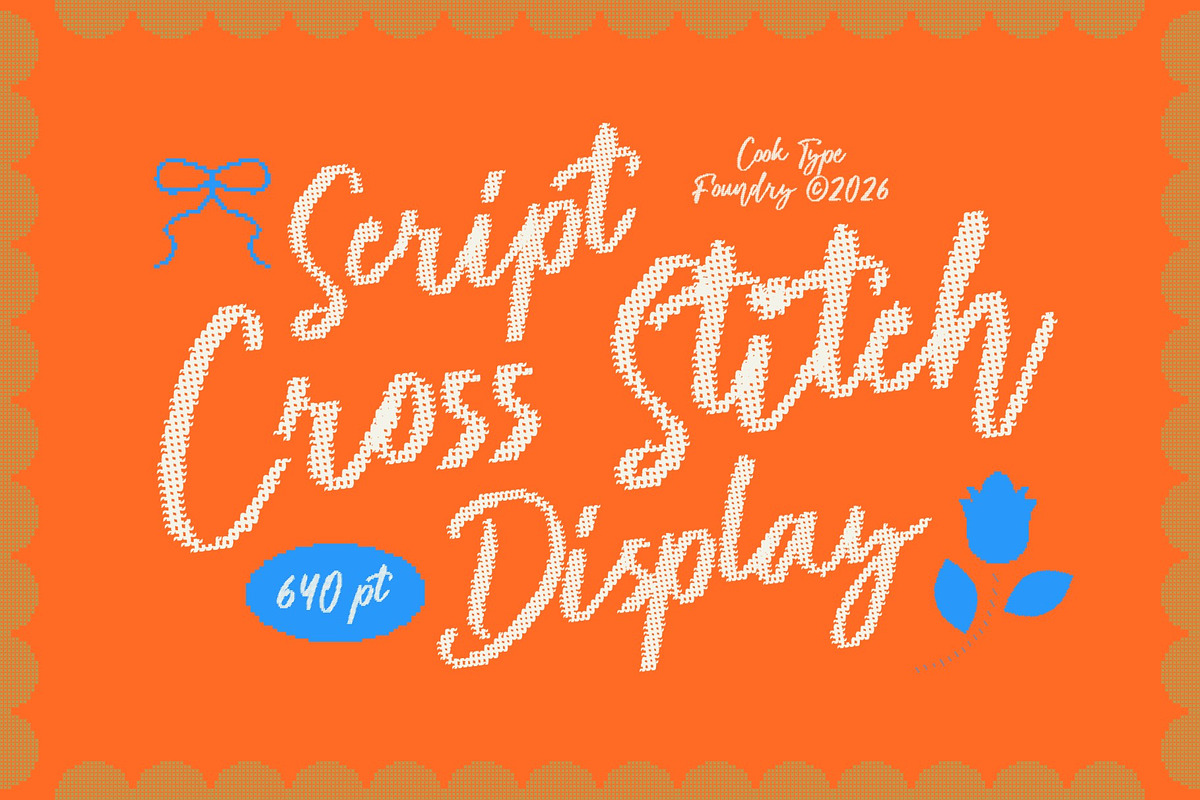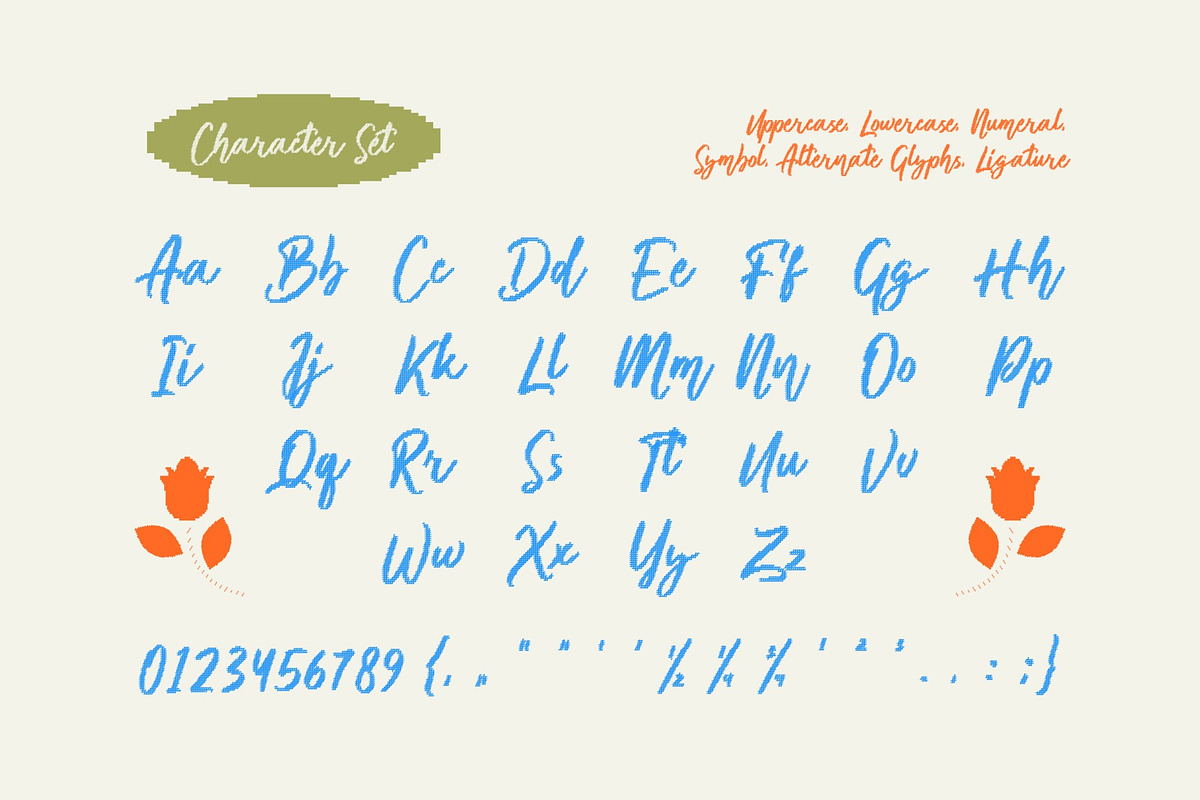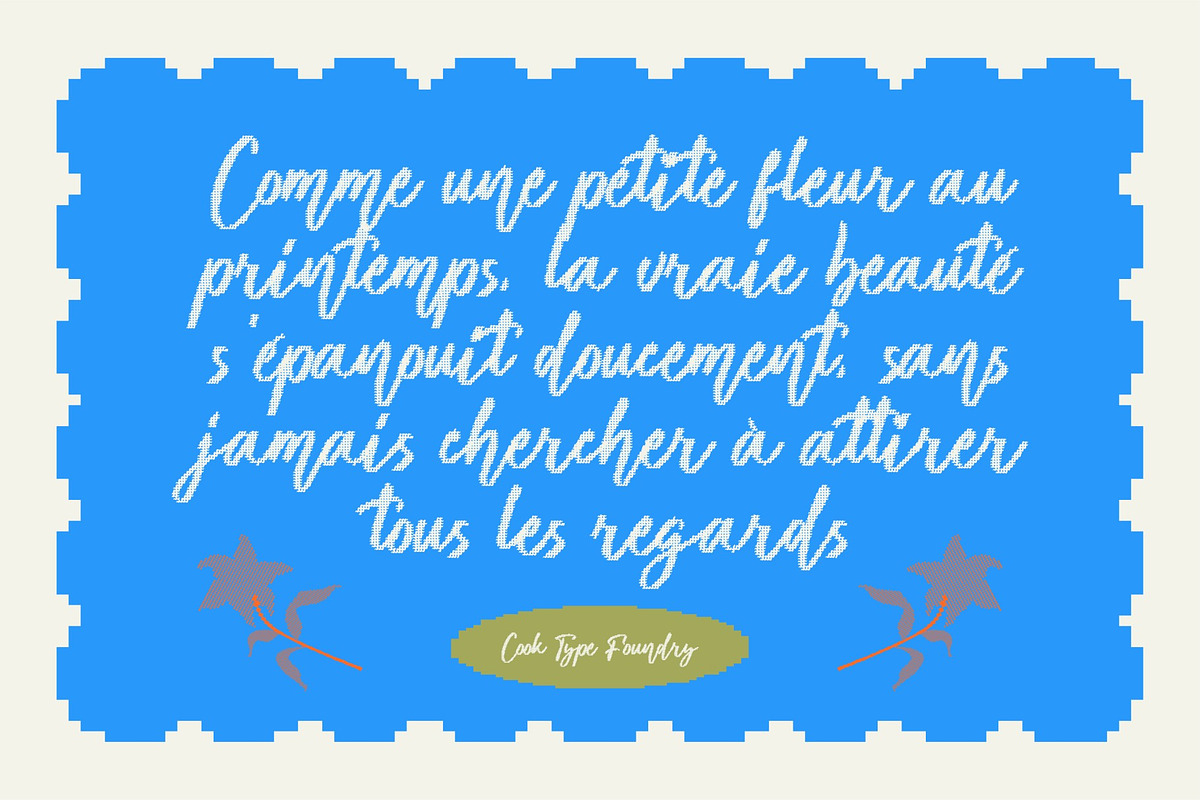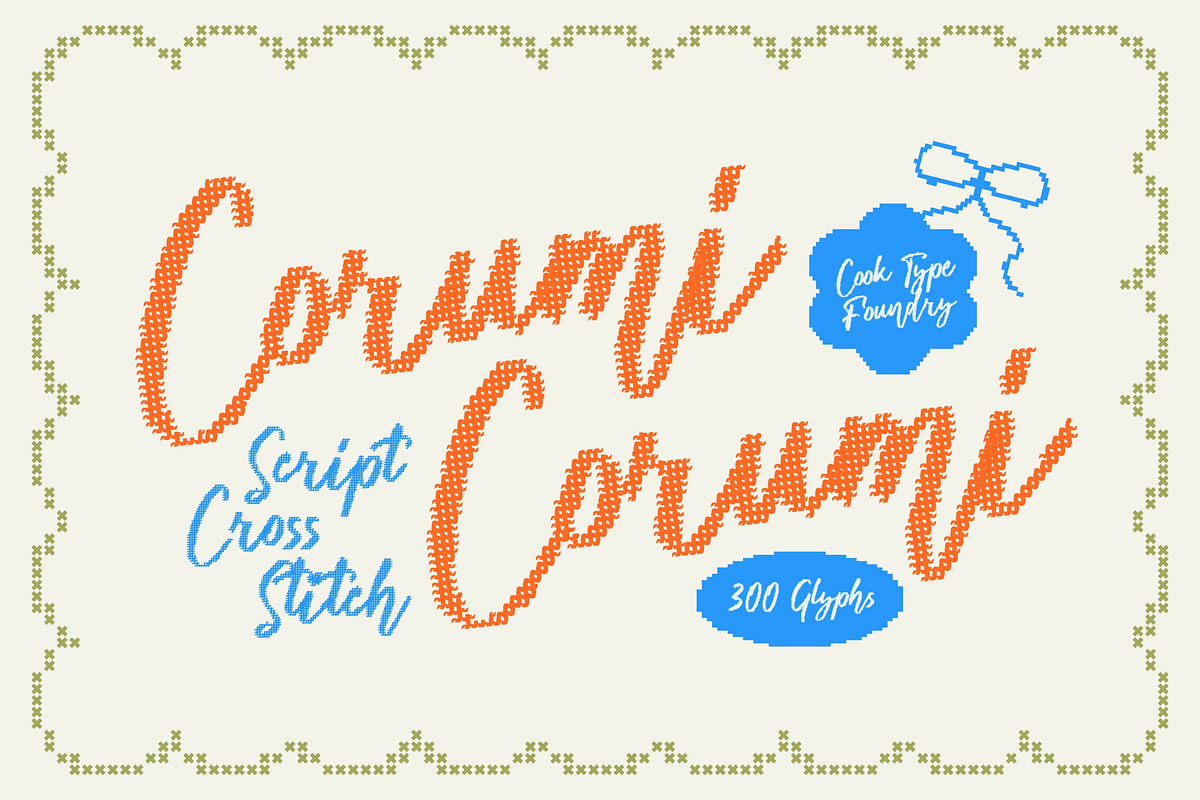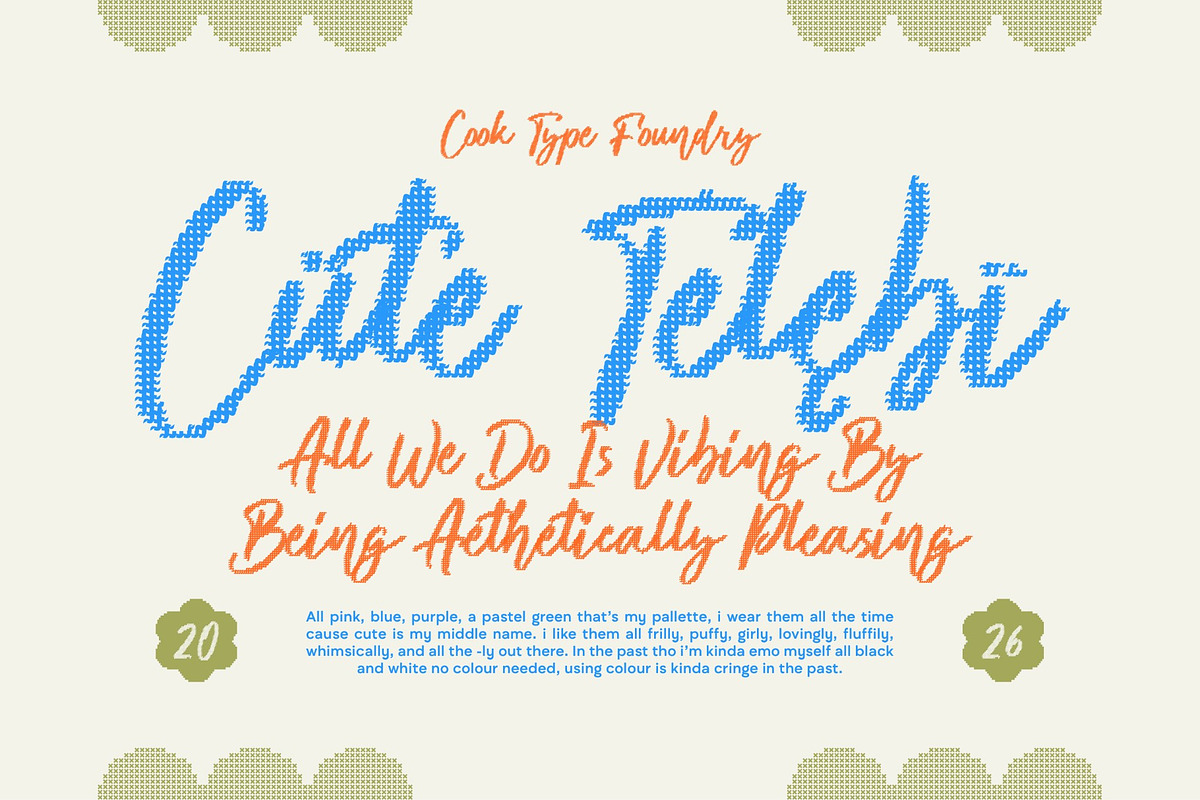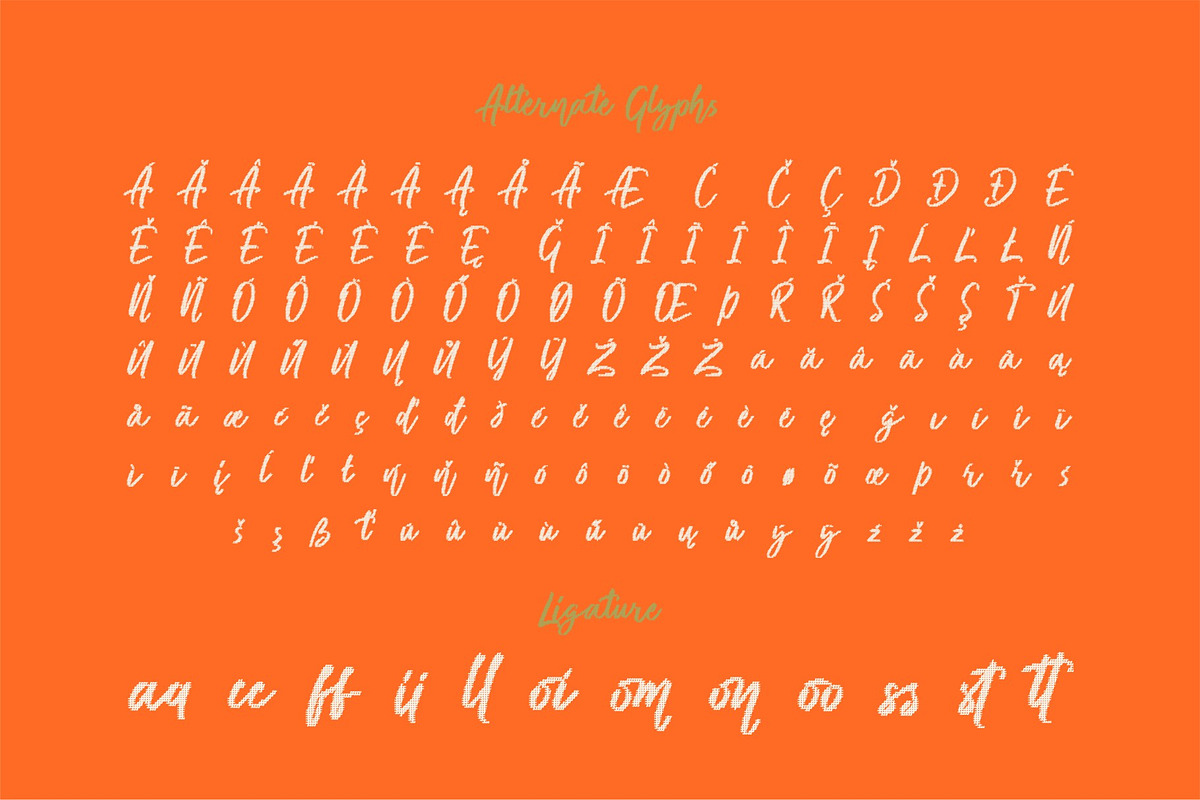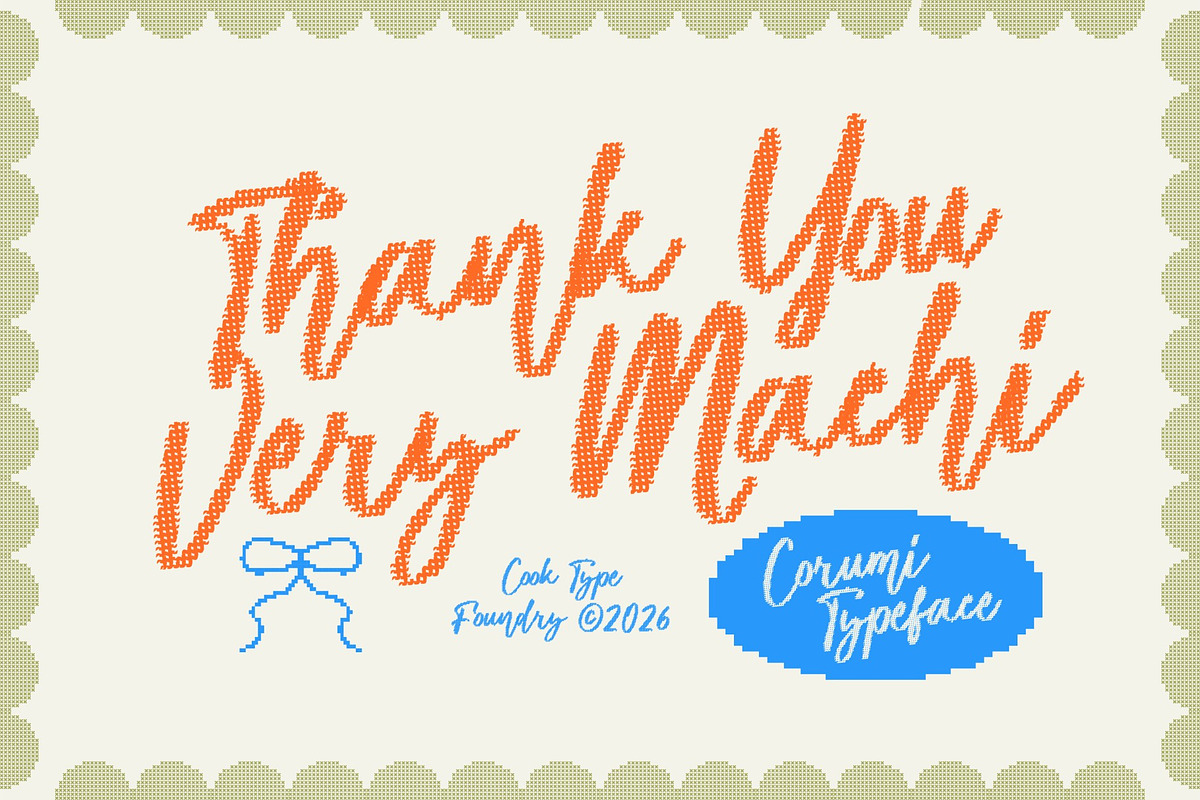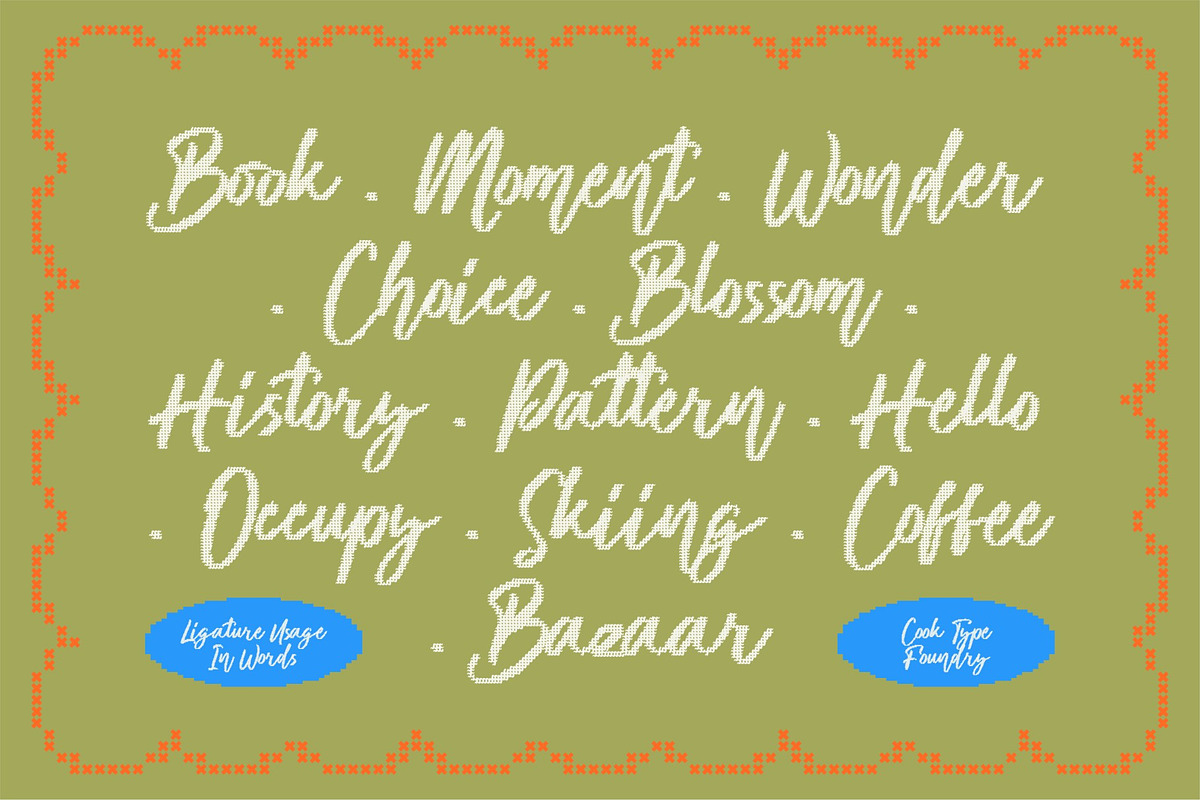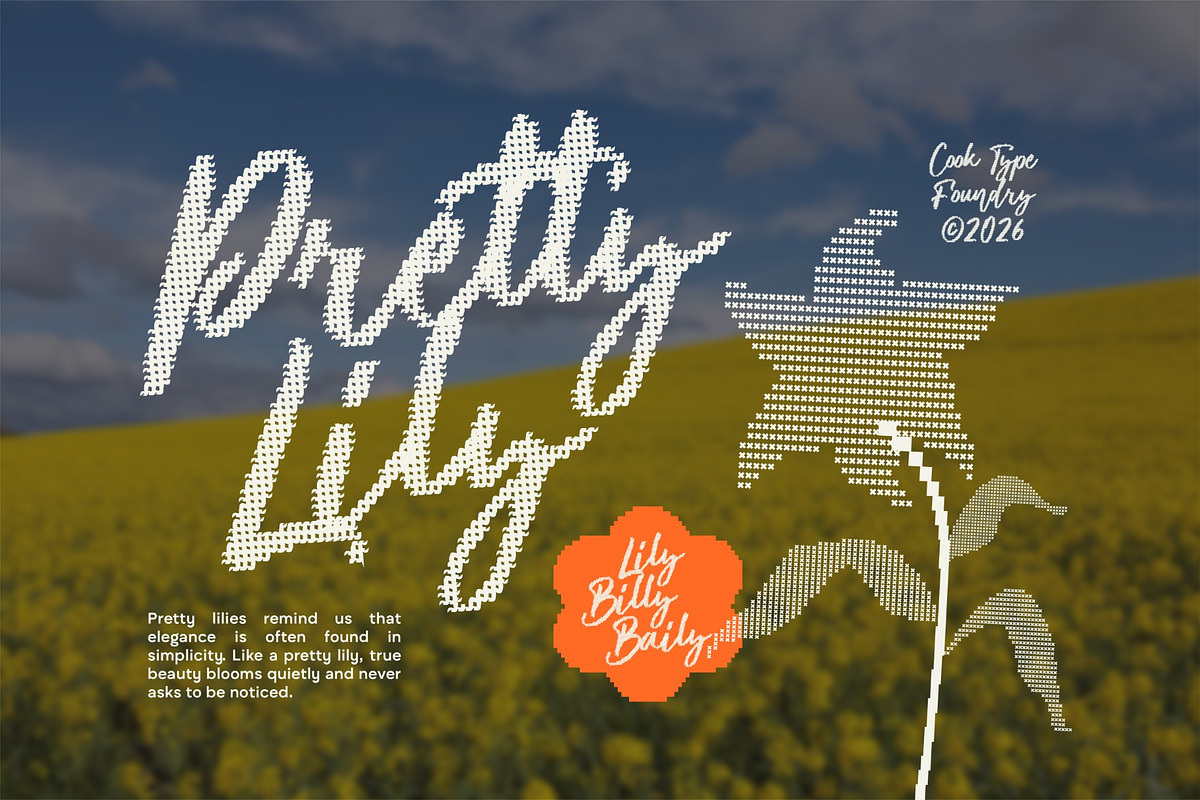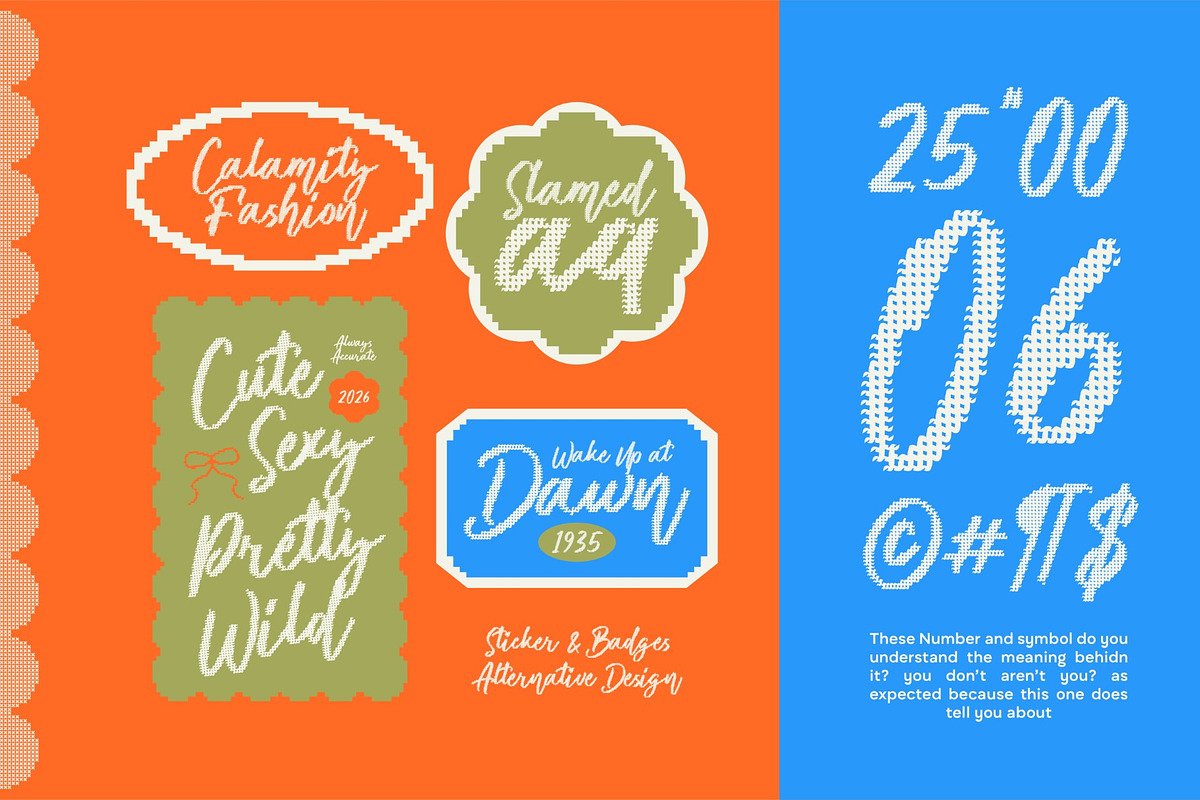
Corumi
Corumi is a playful and expressive script typeface with a distinctive stitched, cross-stitch-inspired texture. Its flowing letterforms are built from repeating thread-like marks, creating a handcrafted appearance that feels cozy, crafty, and full of personality. The combination of cursive movement and textile-inspired detailing gives it a unique look that stands out in both digital and print projects.
It is perfect for headlines, logotypes, magazines, packaging, quotes, movies, games, cover albums, book covers, and flyers, it's a perfect solution for creating eye-catching designs that stand out in any context.